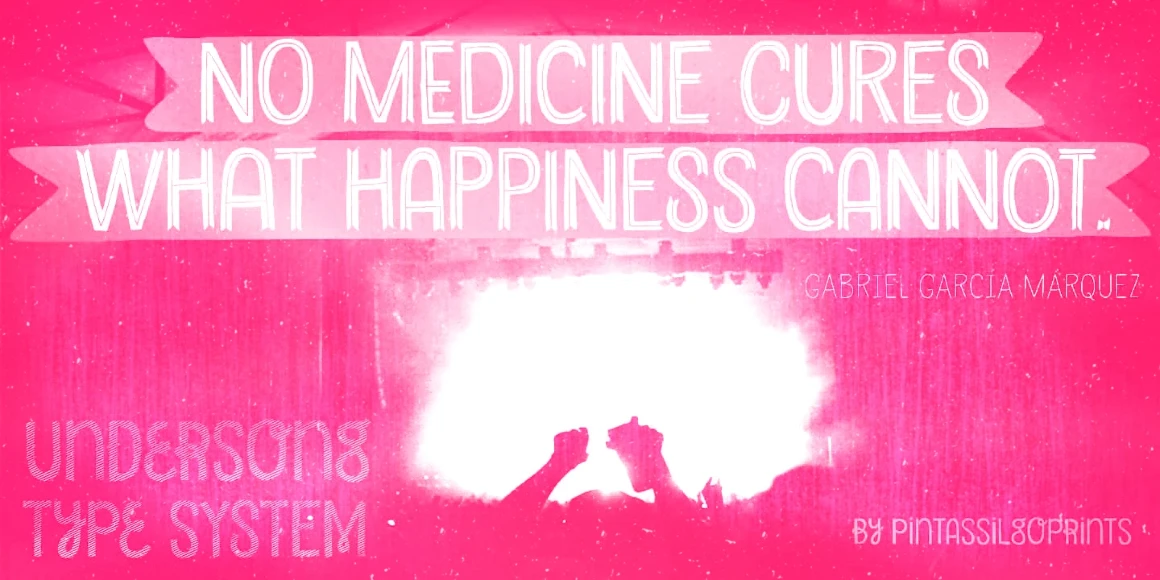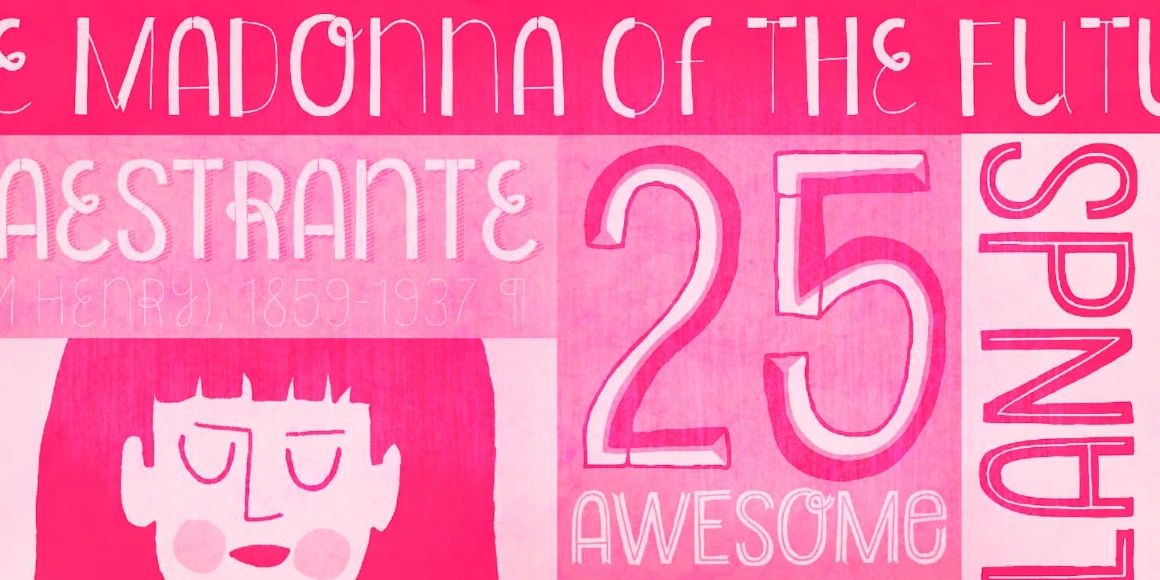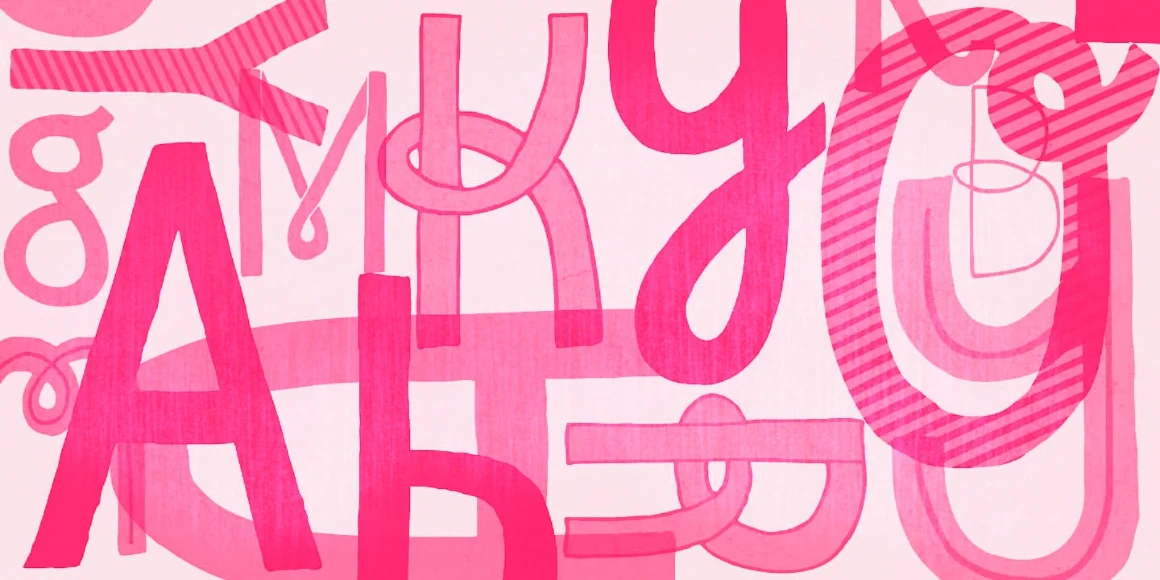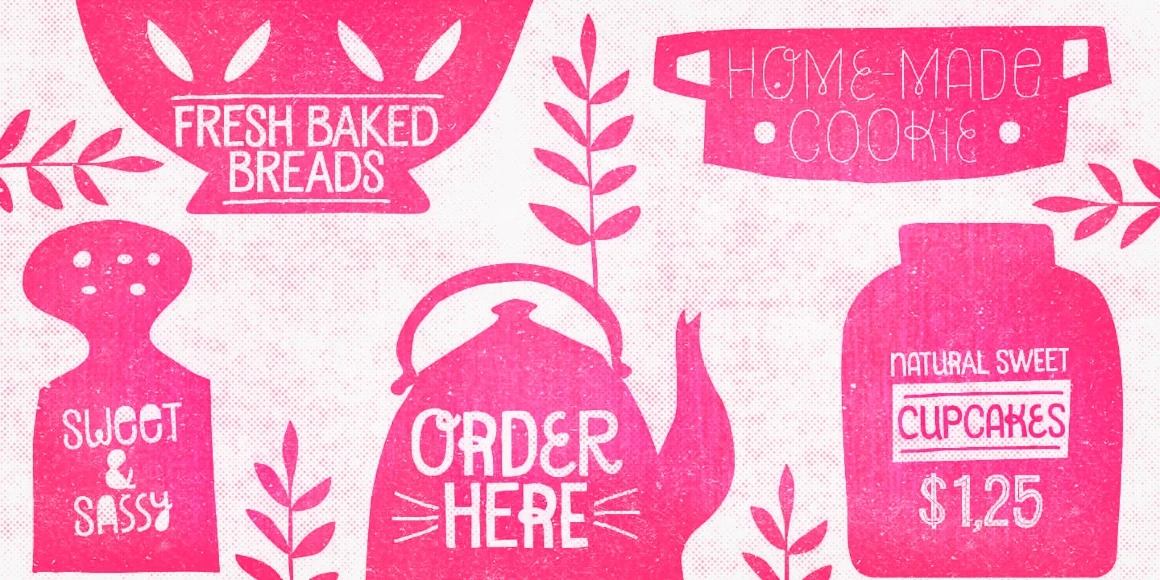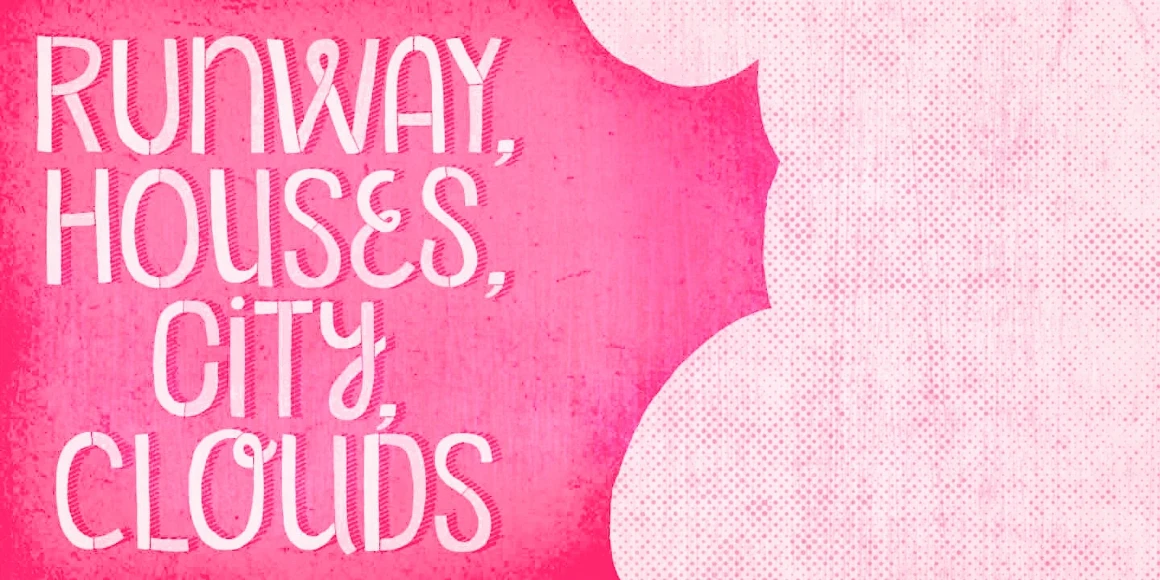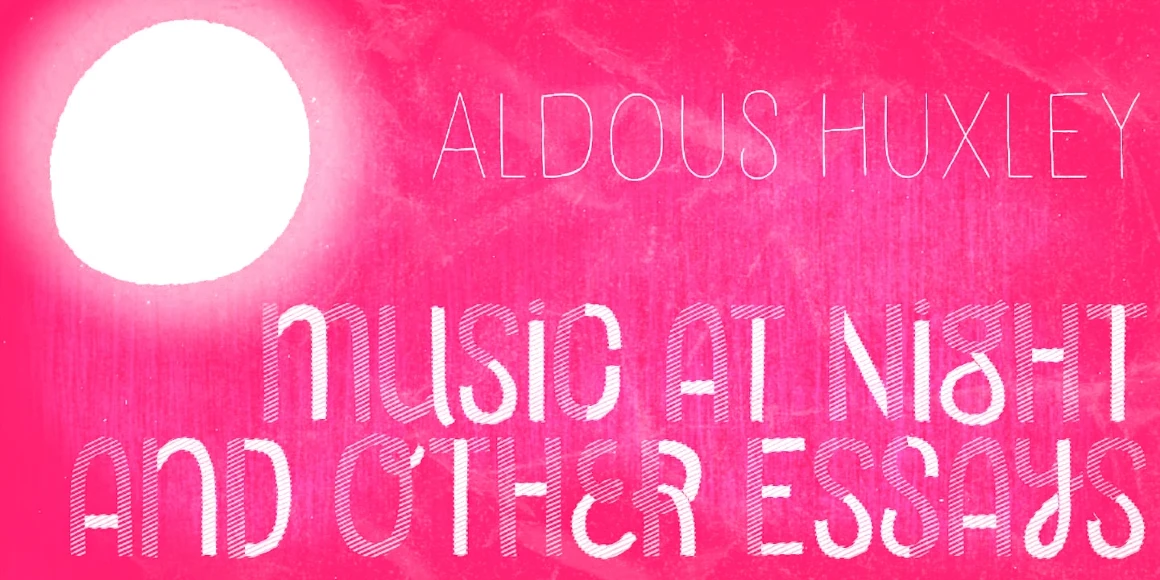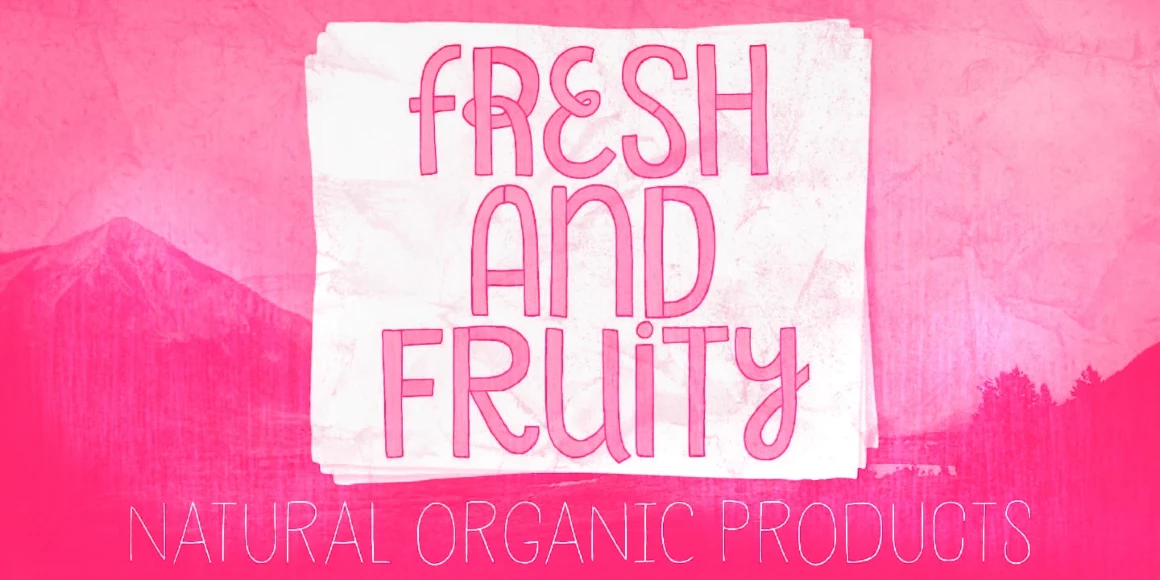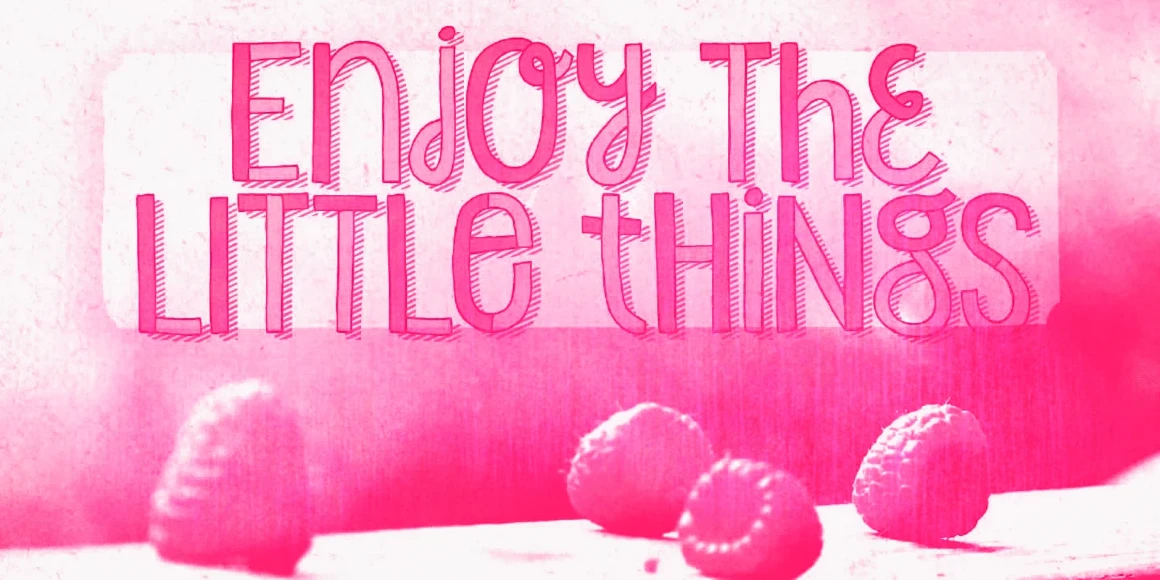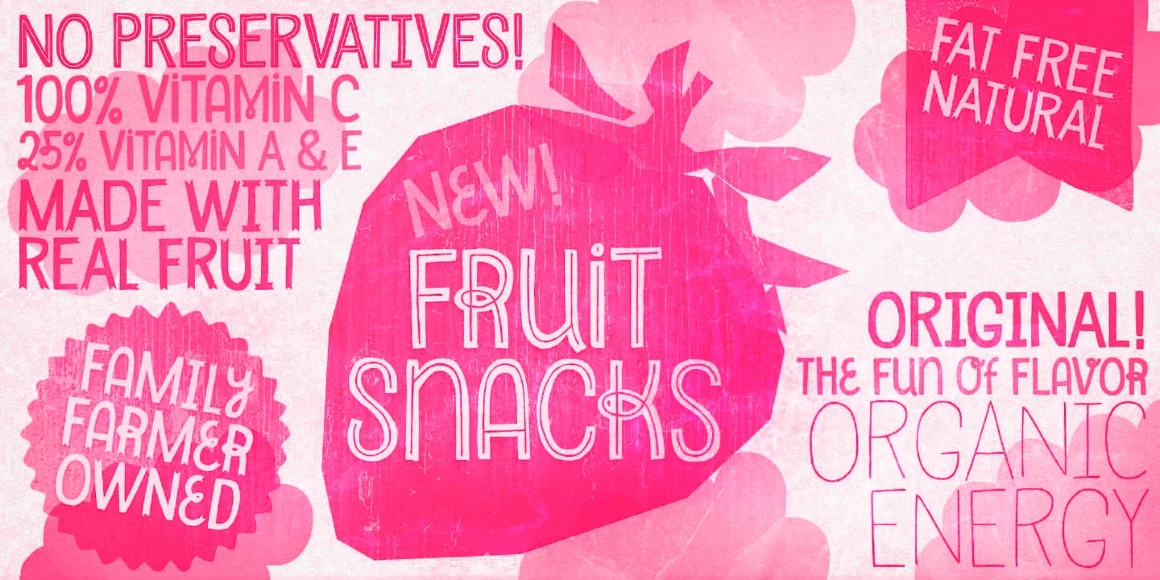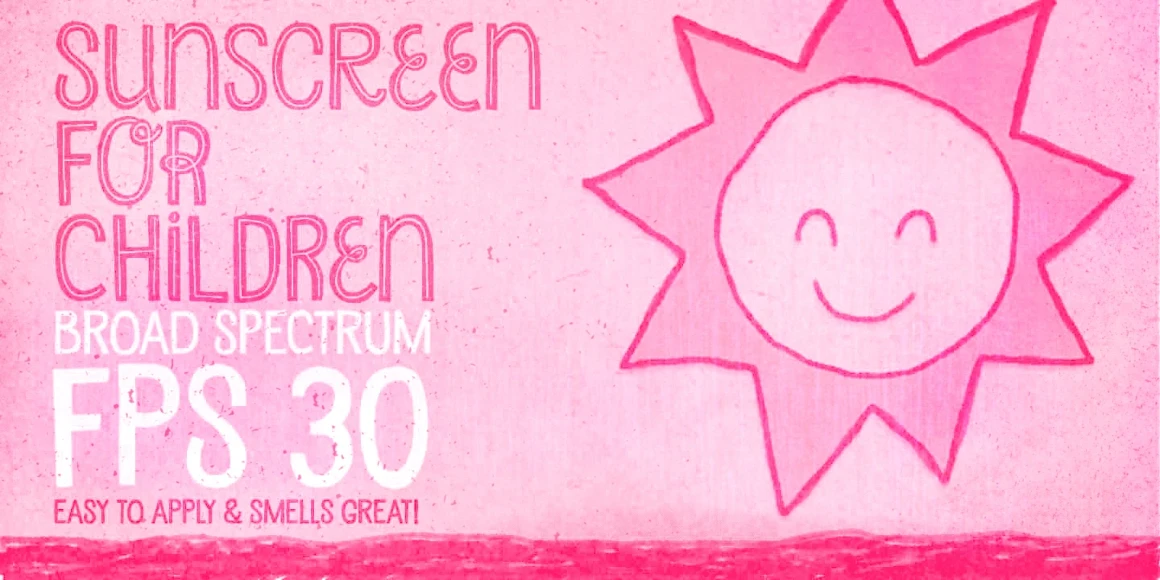
Undersong
Undersong is a charmingly artisanal hand-lettered sans. With 13 quirky stackable styles that can be combined in many delectable ways — layered or not — you’ll see that these fancy faces work together scrumptiously well. Unicase in structure, but not a bland letter in sight, this family will work its magic on t-shirts, posters, book covers, packaging, and more! Some great font families out there are said to be workhorses. Think of Undersong as your work-unicorn: perfect for fantastical and imaginative projects!
Undersong Filled
Undersong Half1
Undersong Half2
Undersong Inline
Undersong Line
Undersong Regular
Undersong Solid
Undersong Split
Undersong Split1
Undersong Split2
Undersong Stencil
Undersong Stripes
Undersong Tuscan